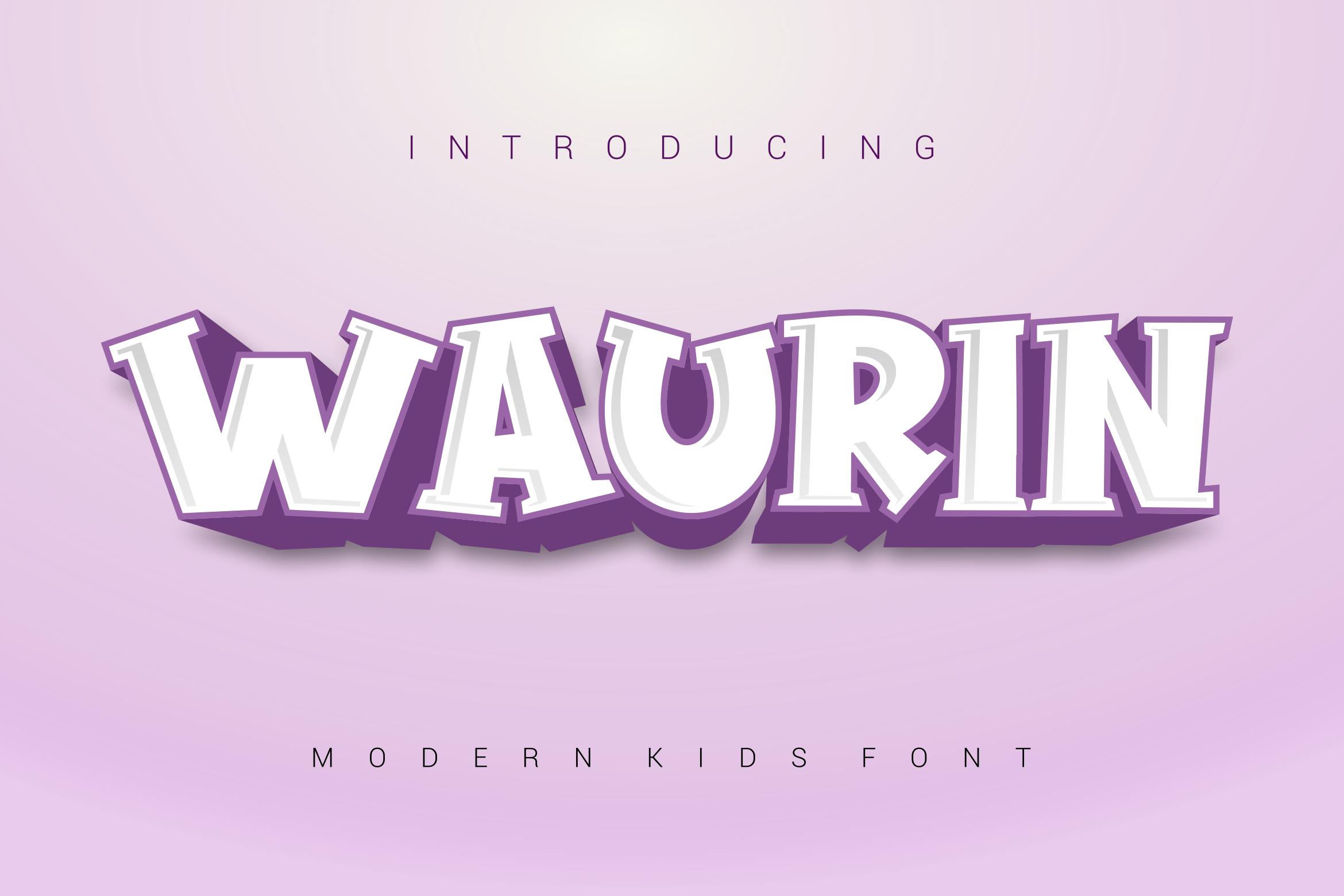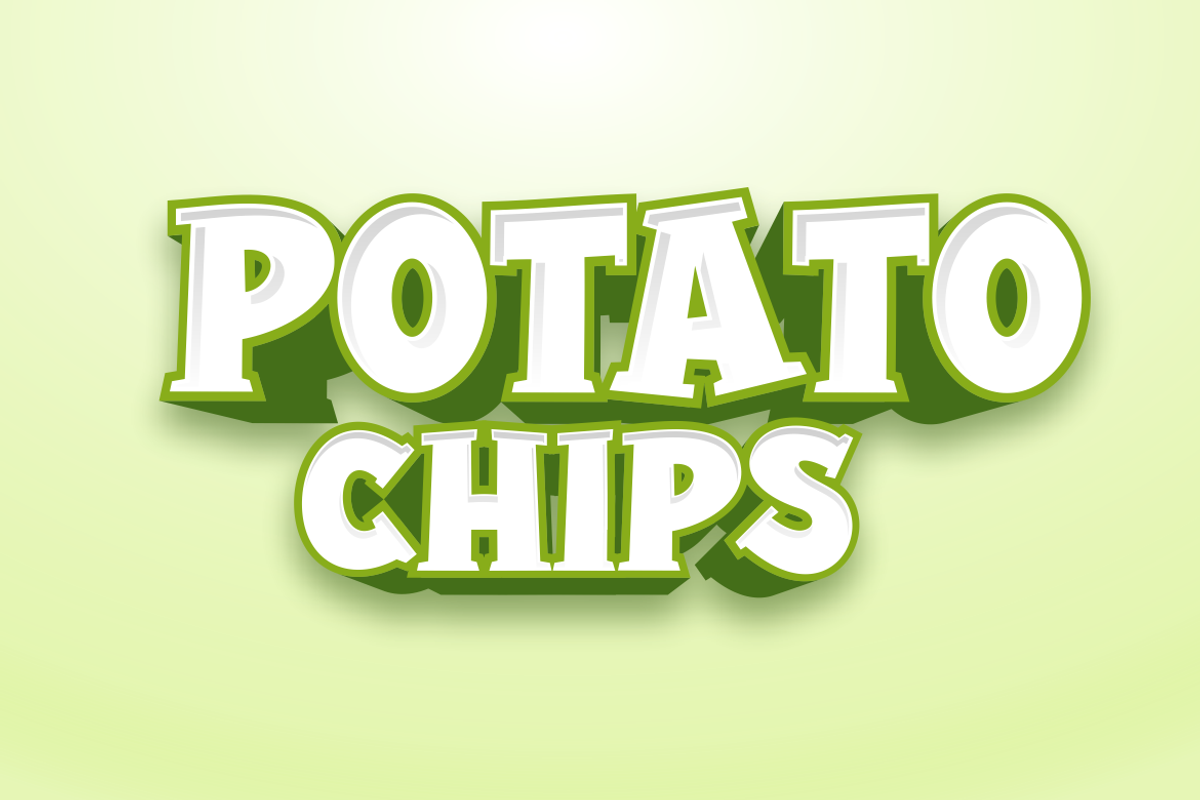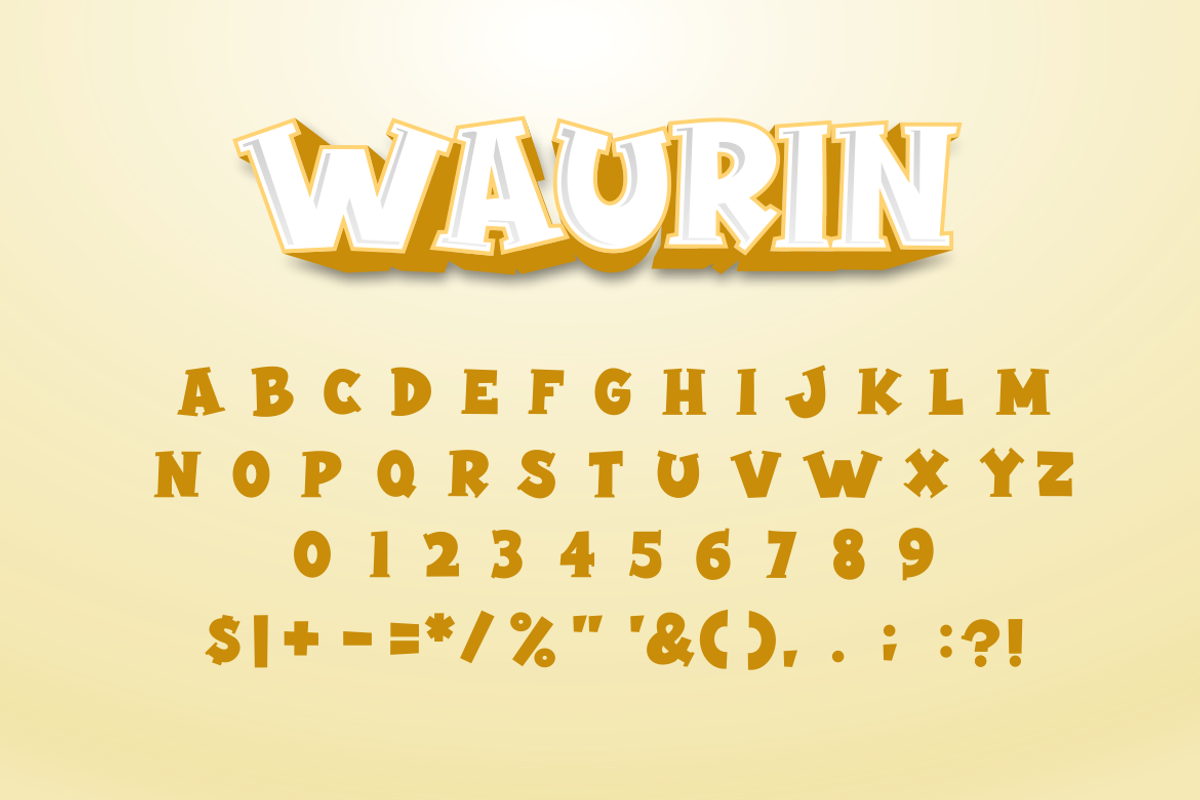
Waurin Font
Introducing our new product Waurin Font - Modern Font
Waurin Font - Modern Font is a bold and authentic display font. The font is suitable for any branding project like logo, esport, and many more. outstanding in a wide range of contexts.